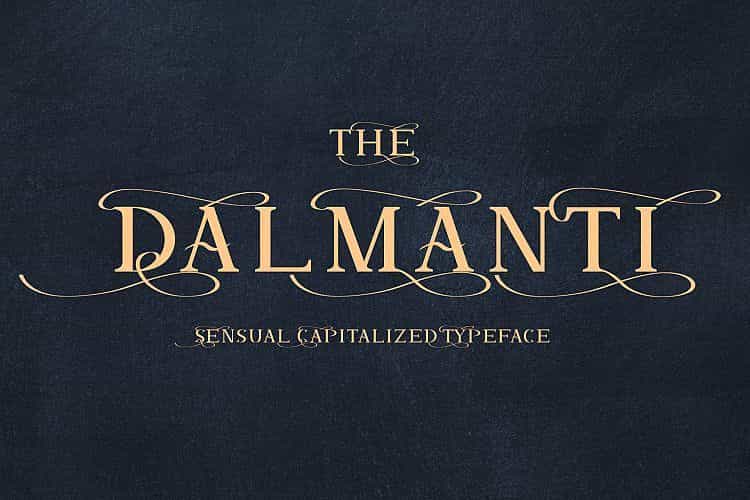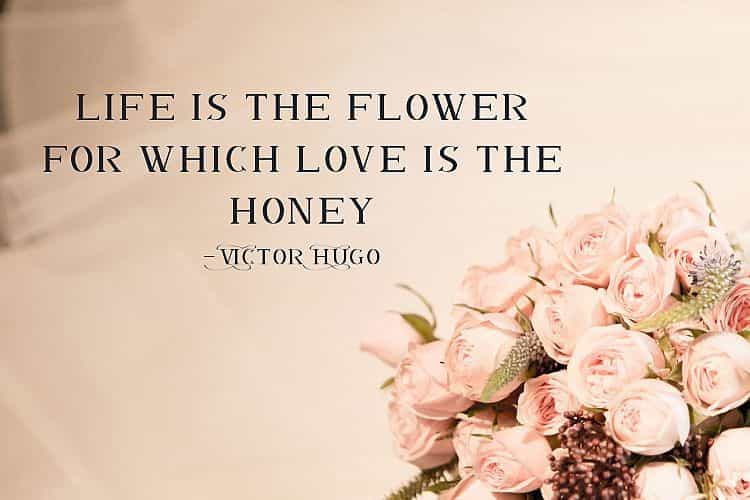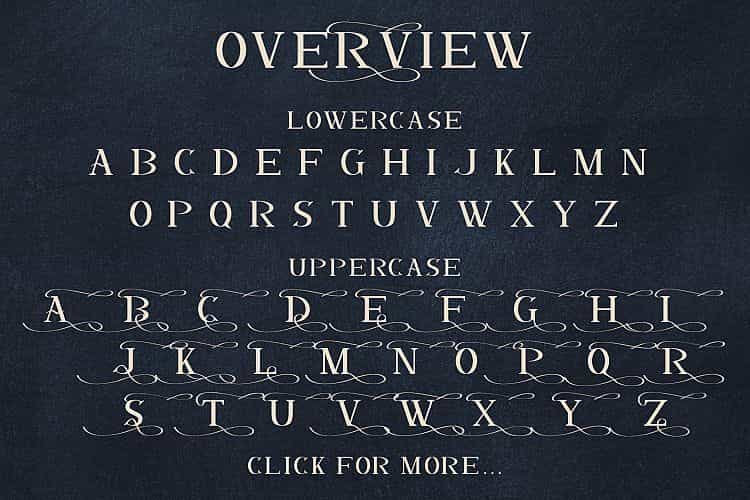
Thank you for Dalmanti Font. A contemporary serif with a geometric feature and semicircular corners. The Dalmanti Typeface is a sexy uppercase typeface that has many possibilities and it can be used in various ways, especially for the alternative.